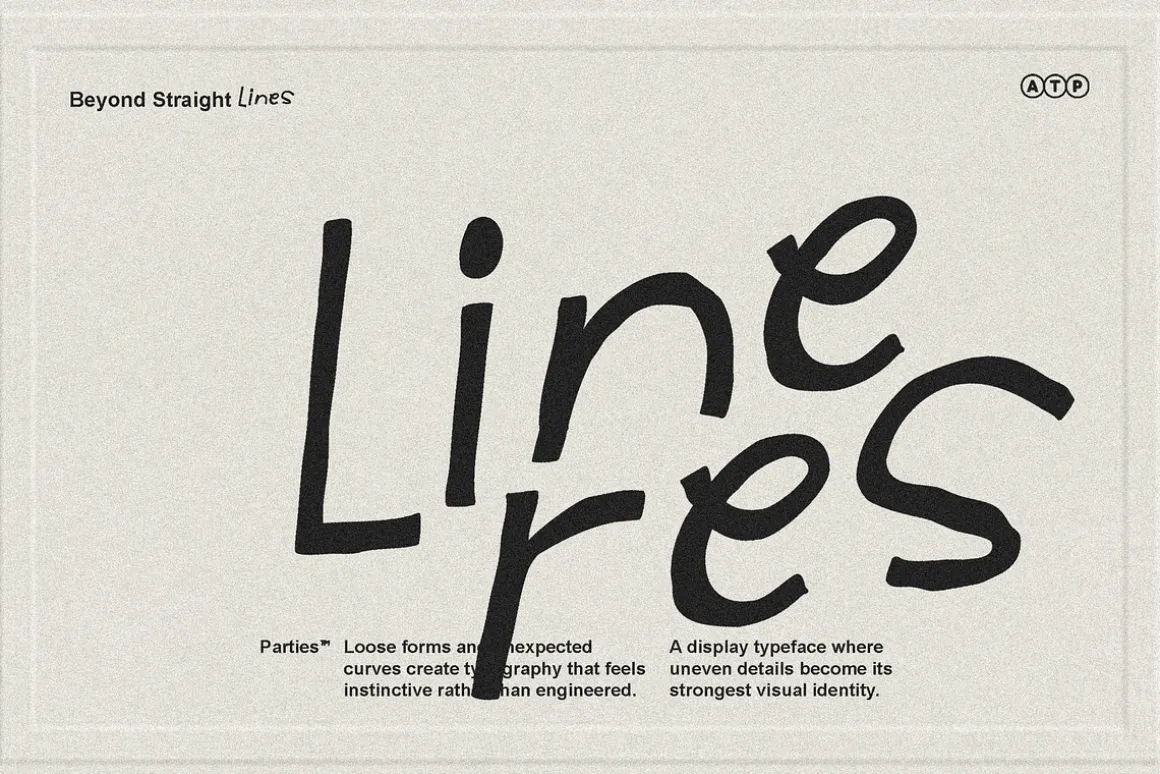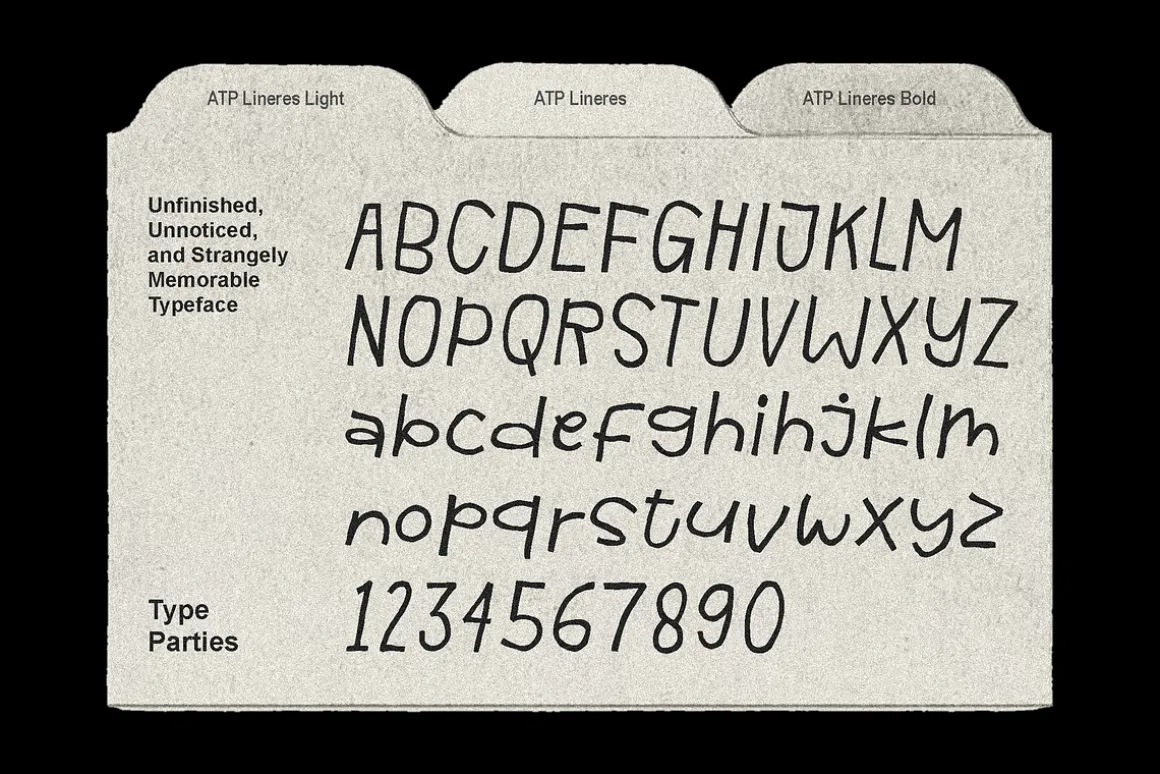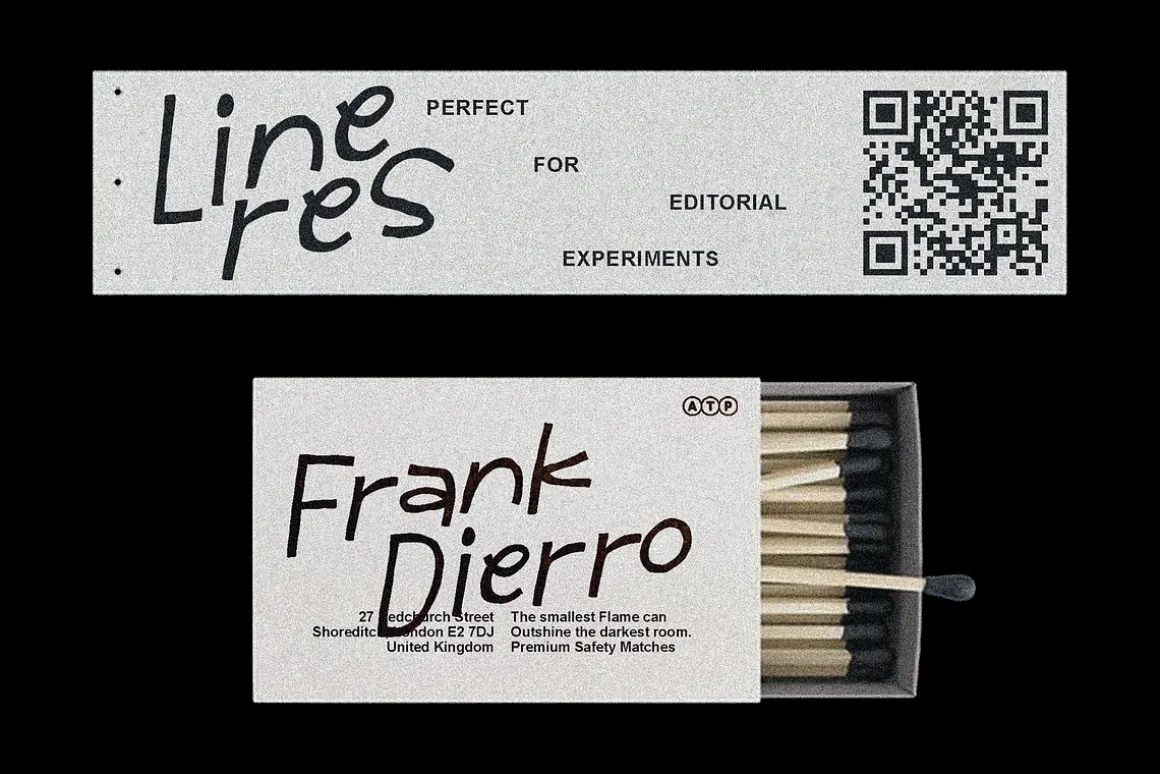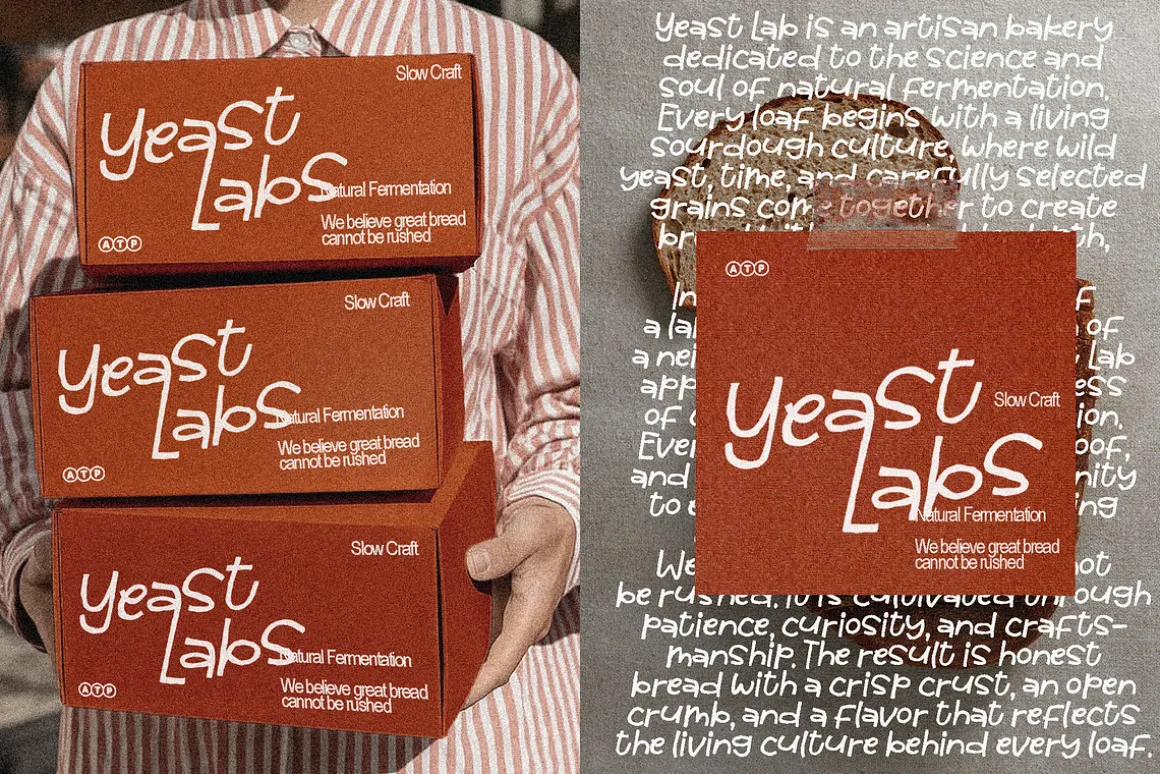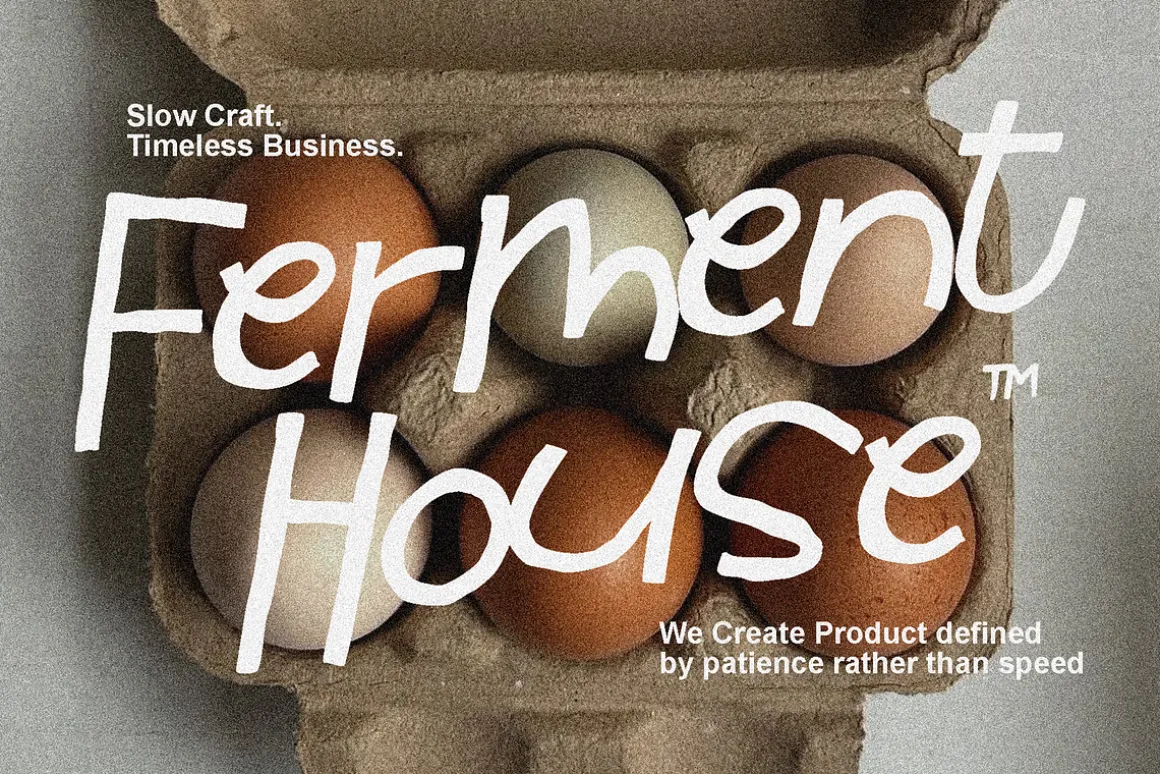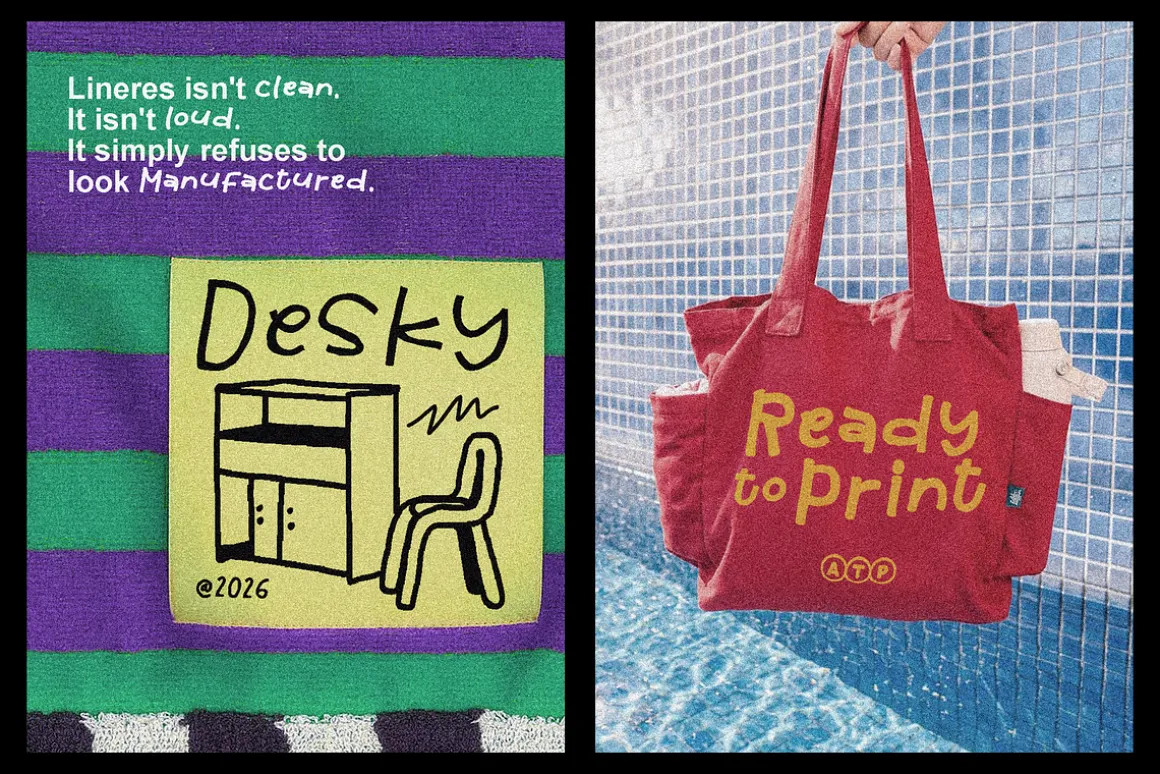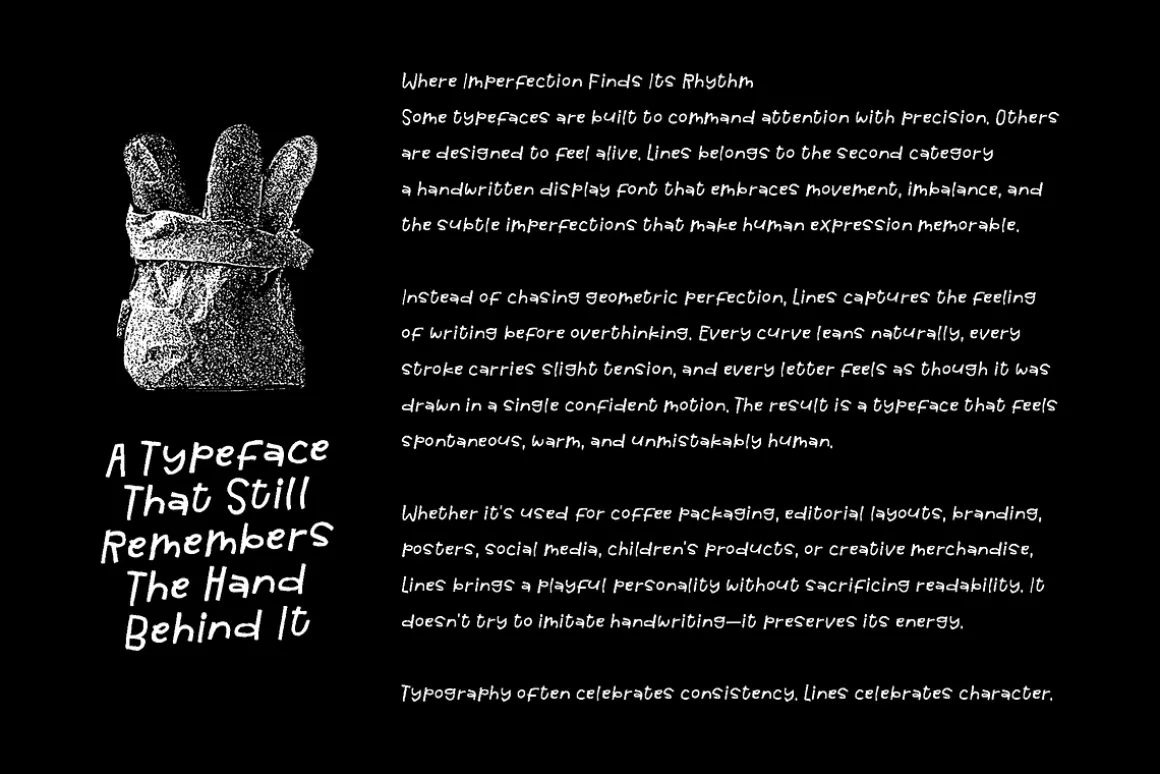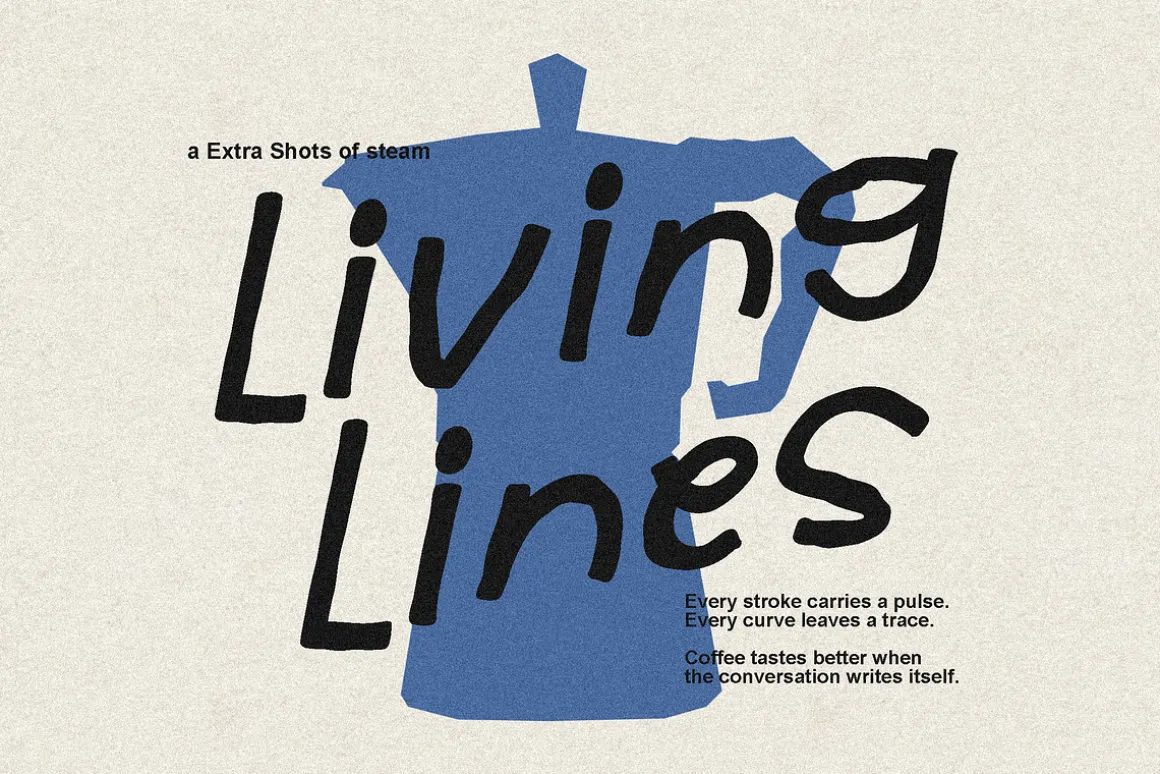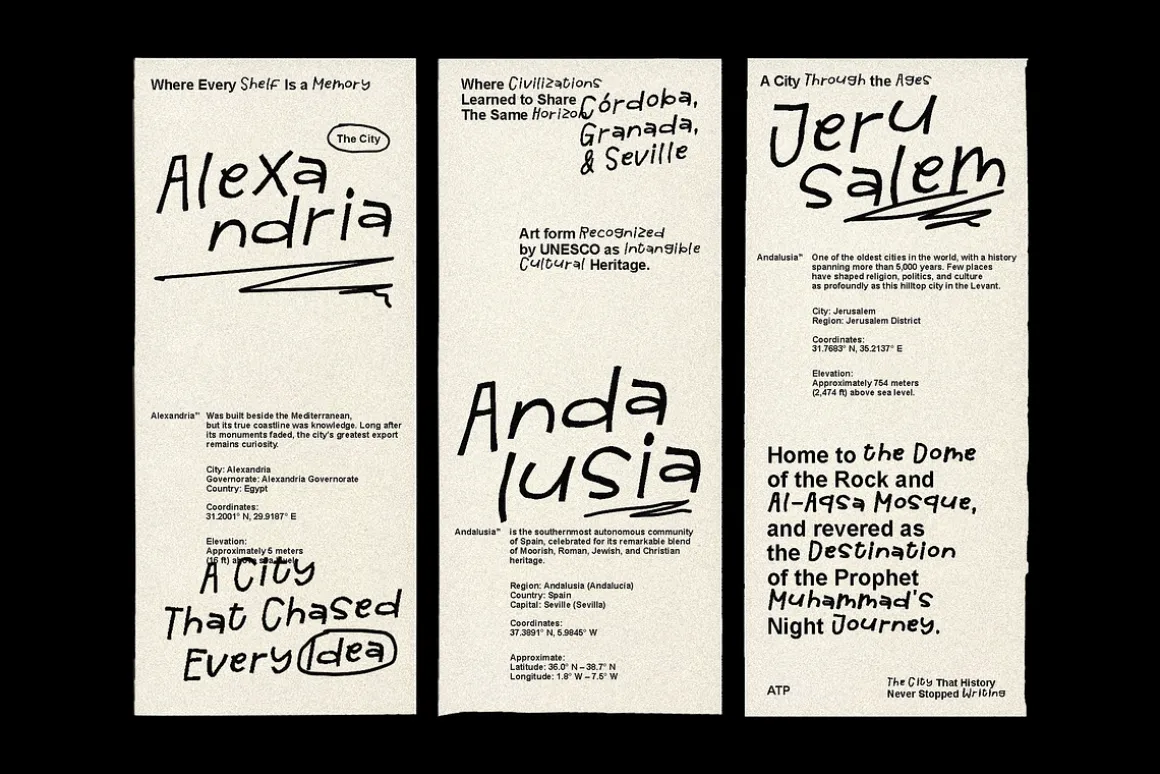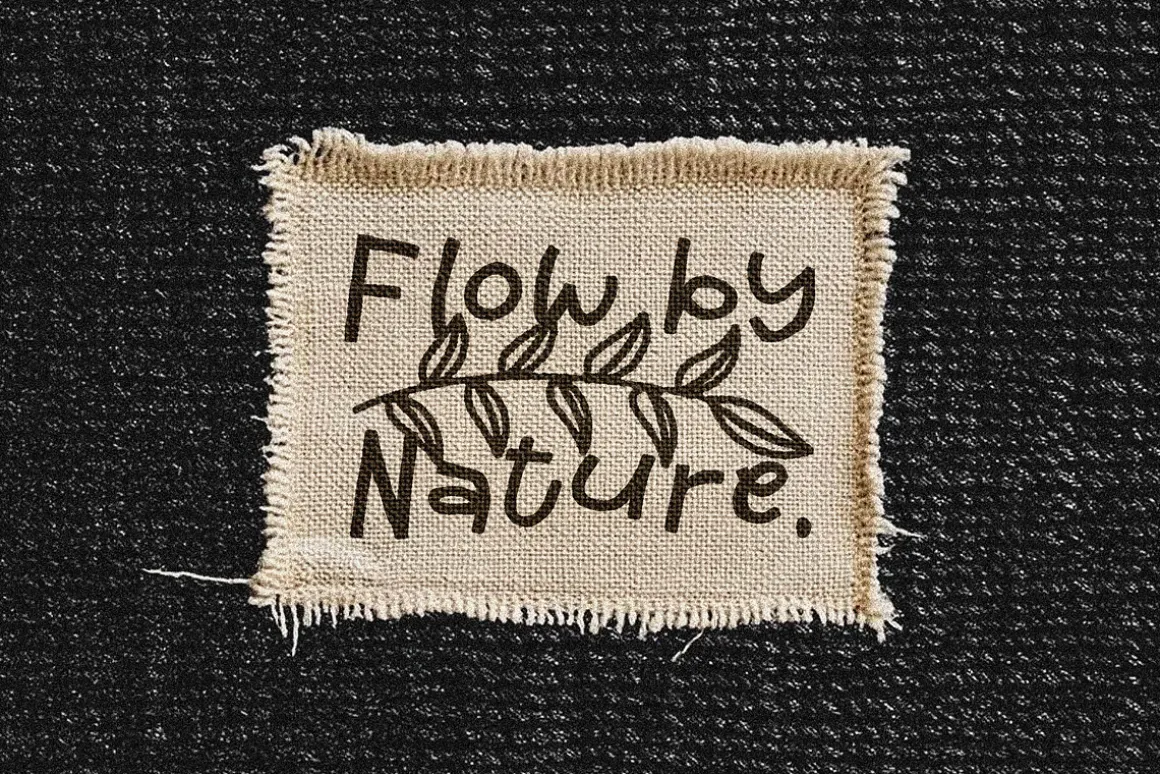
Lineres a playful handwritten display font that embraces the beauty of imperfection. Built with organic strokes, uneven curves, and naturally flowing letterforms, it captures the feeling of words written quickly with confidence rather than precision. Its charming irregularities create a warm, authentic personality that feels both artistic and approachable.
Perfect for branding, editorial layouts, packaging, children’s books, café menus, social media graphics, posters, greeting cards, and creative merchandise, Lines brings a relaxed yet expressive voice to every design. Whether used for bold headlines or eye-catching logos, the font delivers a handcrafted aesthetic that stands out without feeling forced.
Inspired by sketchbooks, handwritten notes, and spontaneous creativity, Lines celebrates individuality through simple forms and lively rhythm. Each character carries a subtle human touch, making every word feel personal, genuine, and full of character.